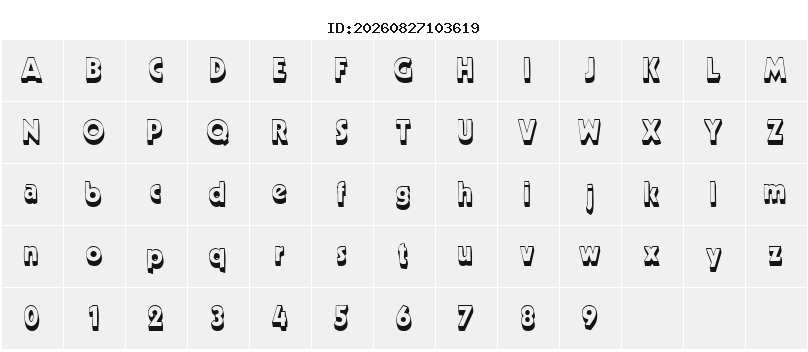
• Font Name: 3-DCable
• Font ID: Altsys Metamorphosis:3-DCable
• Full Font Name: 3-DCable
• Version: Altsys Metamorphosis:4/30/93
• PostScript Name: 3-DCable
• Character Count: 85
About 3-DCable.ttf
3-DCable.ttf is a modern, elegant sans-serif font designed for ultimate readability and visual harmony. Perfect for branding, headlines, web design, and print materials.